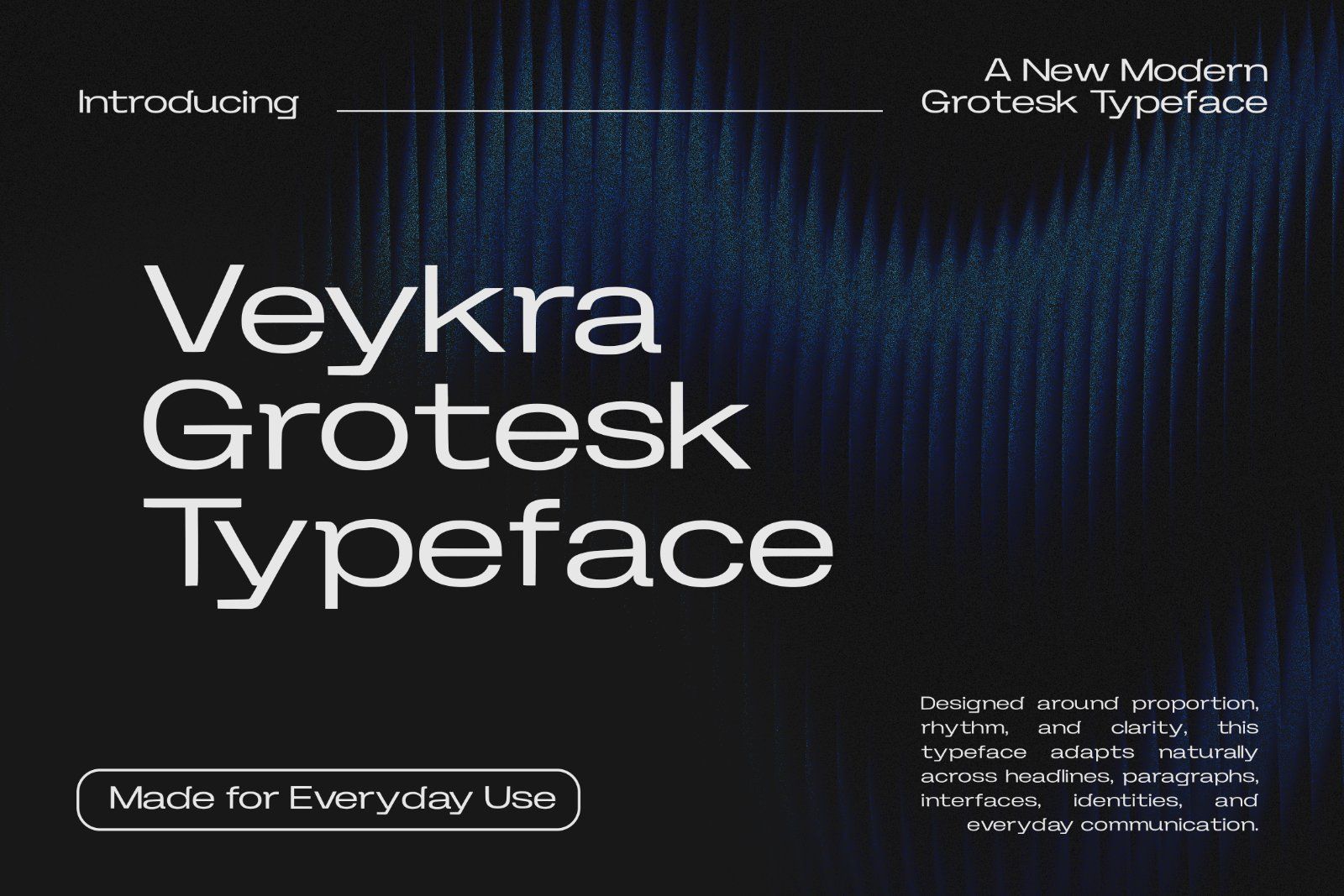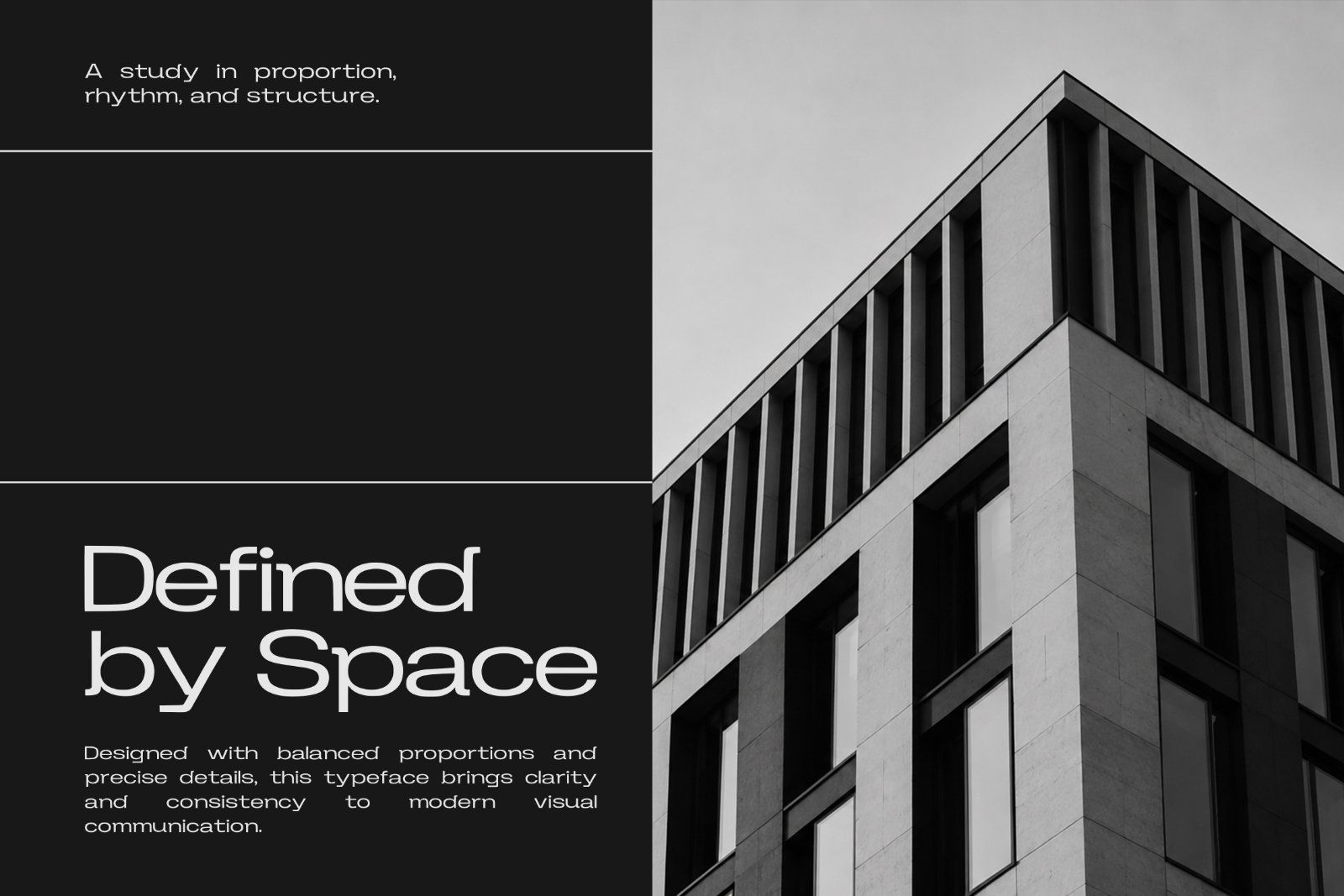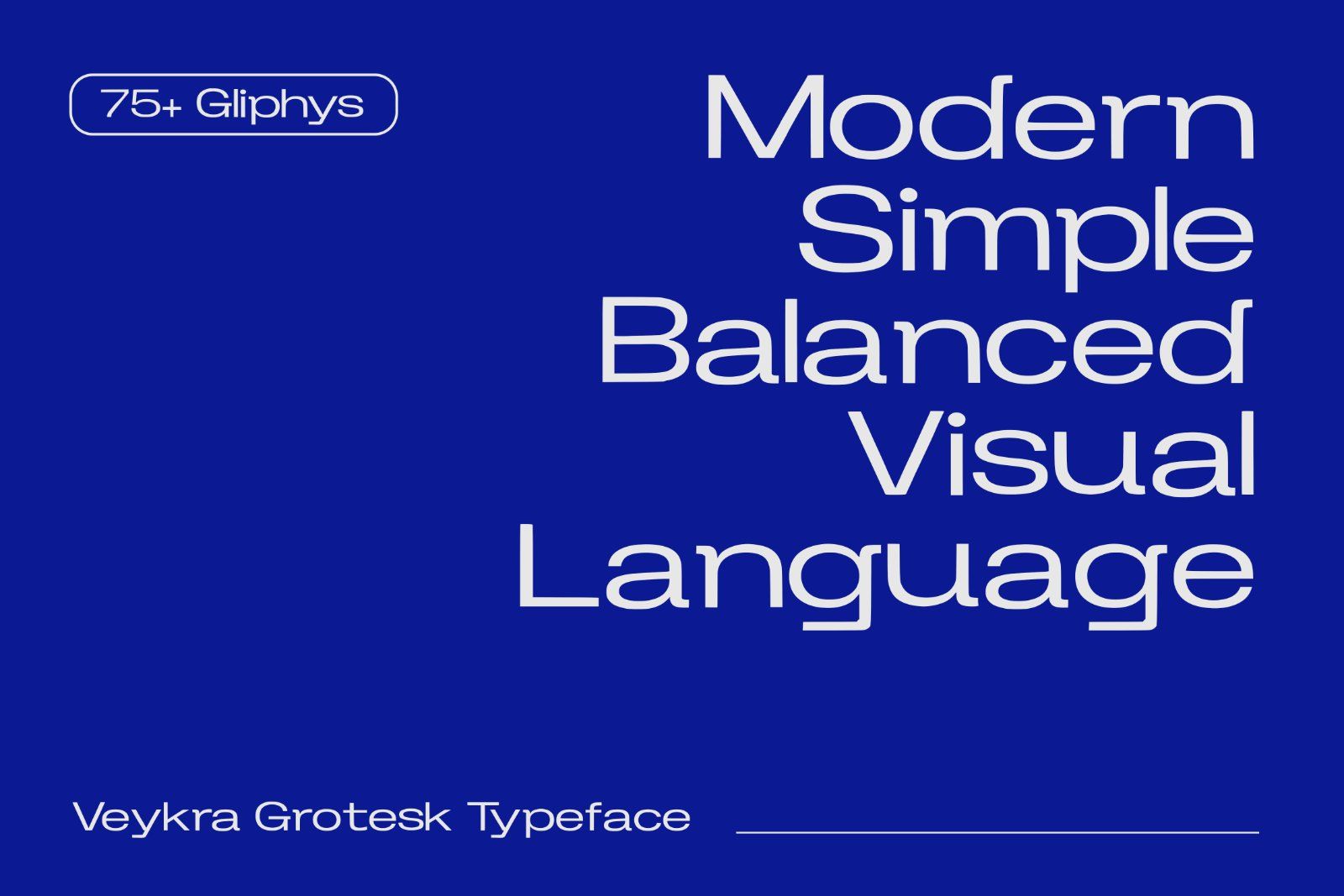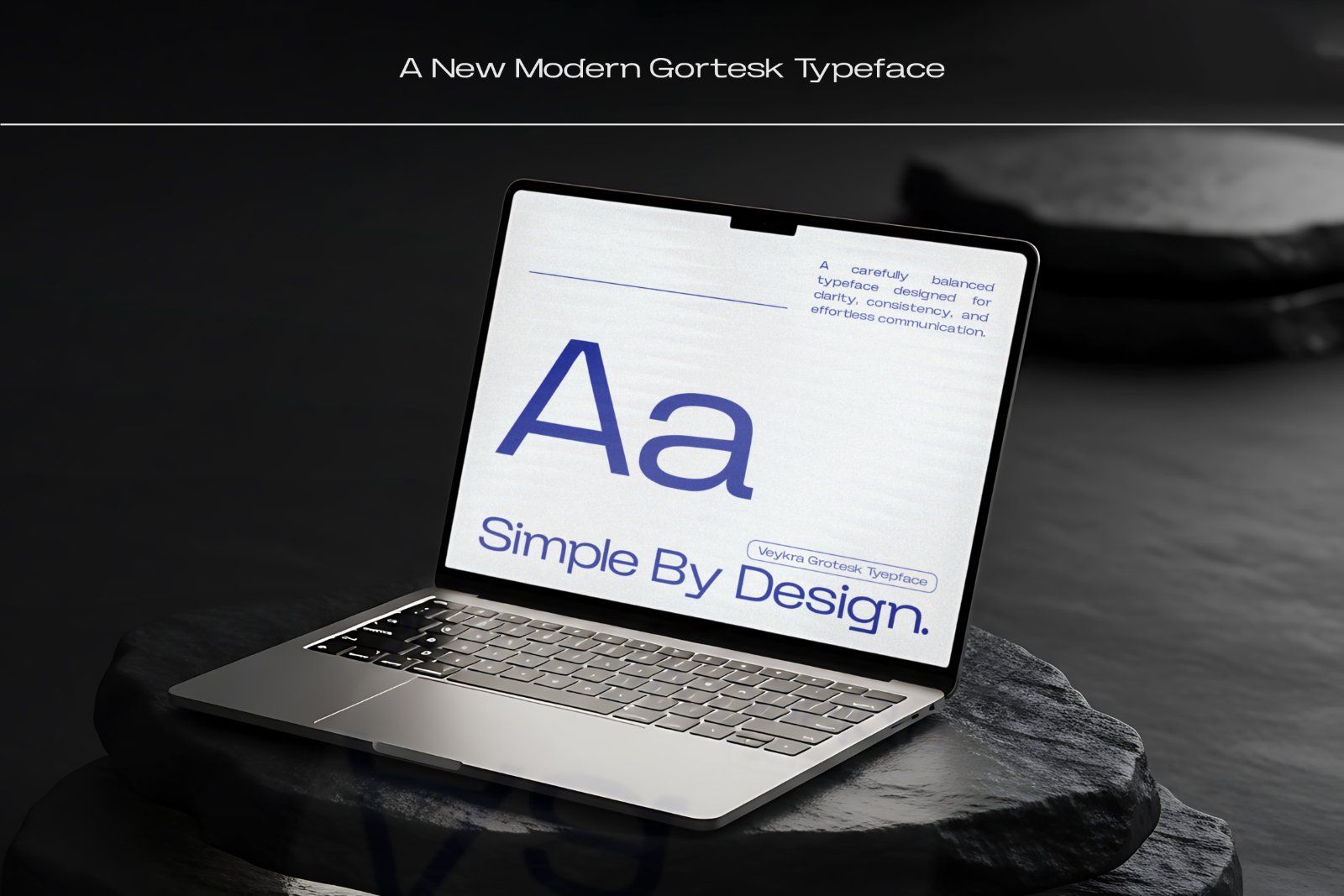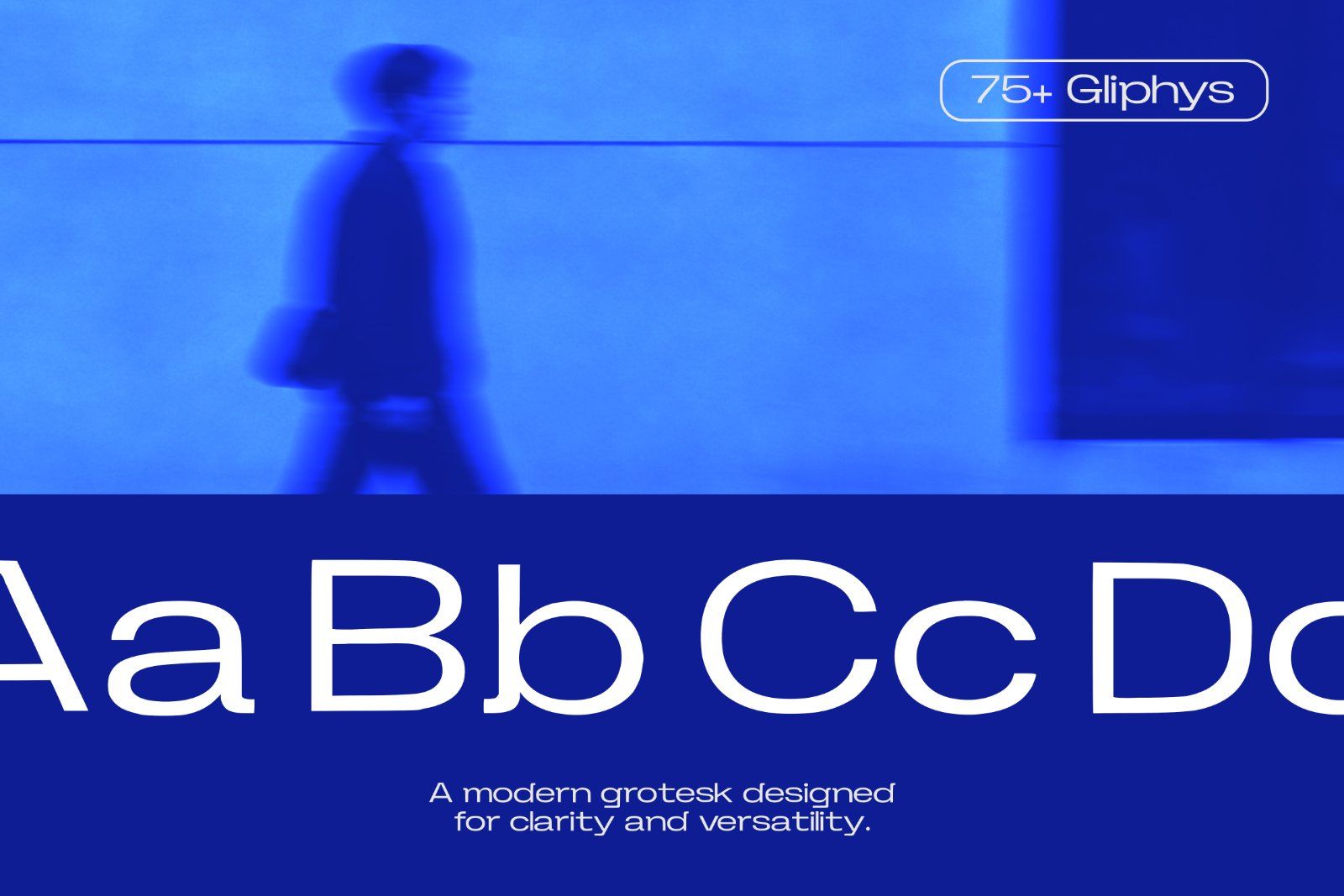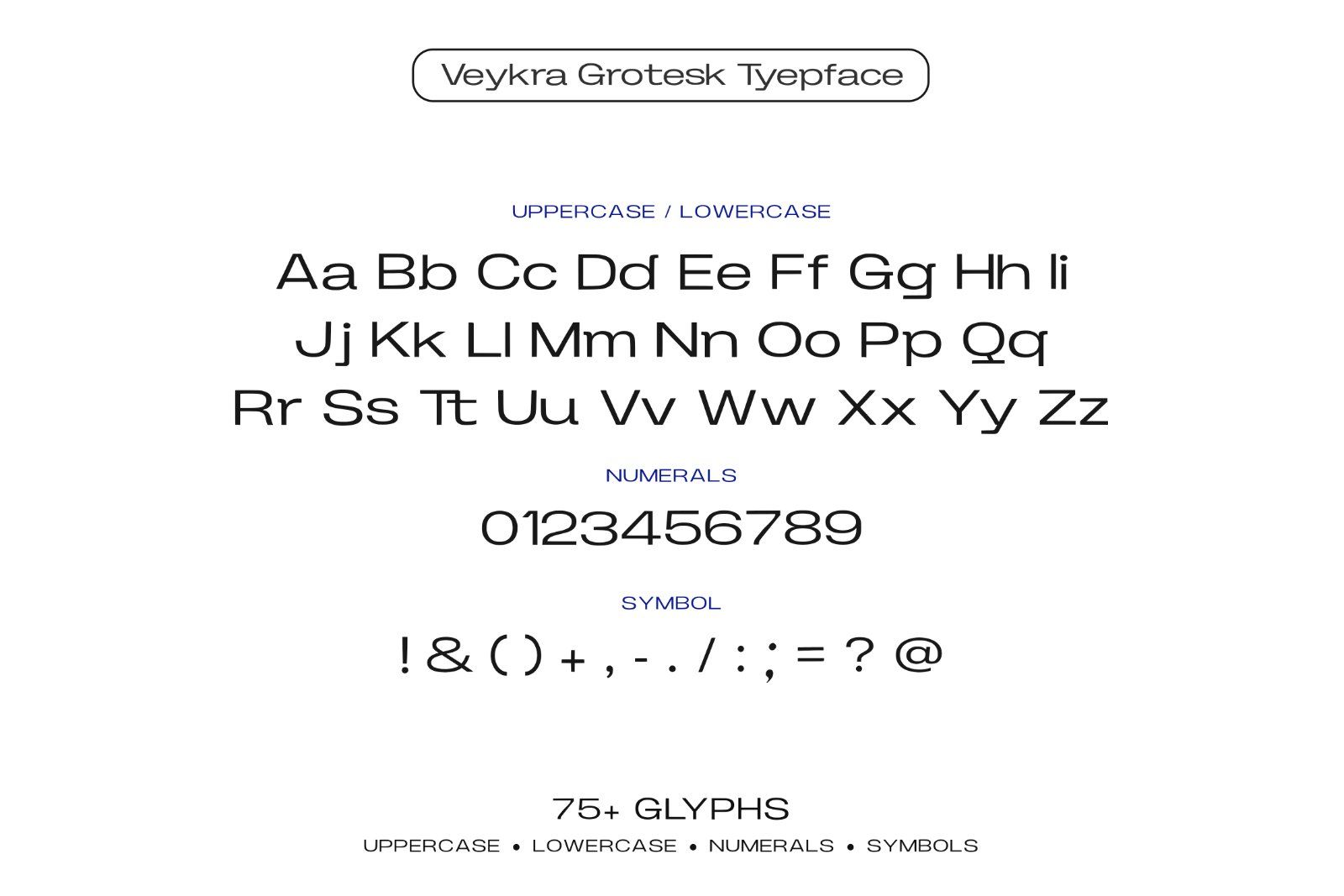
Veykra Grotesk is a modern grotesk typeface featuring clean geometric forms, smooth curves, and balanced proportions. Designed for branding, editorial, digital interfaces, posters, packaging, and contemporary visual communication.
• Full set of uppercase and lowercase letters
• Numbers, punctuation, and symbols
• Handcrafted rough brush textures with natural imperfections
• Brand identity & logo design
• Headlines & display typography
• Editorial & magazine layouts
• Websites & UI design
• Posters & advertising
Veykra Grotesk is made for everyday use clean enough for communication, distinctive enough to make an impression.